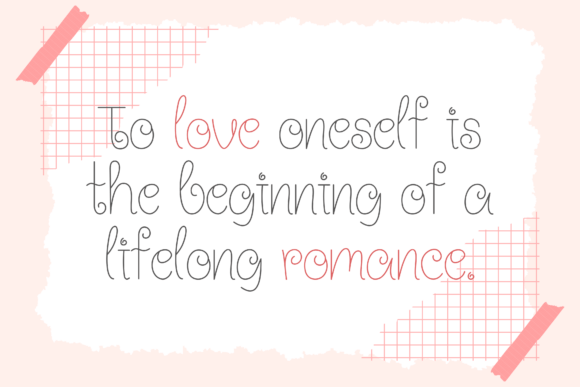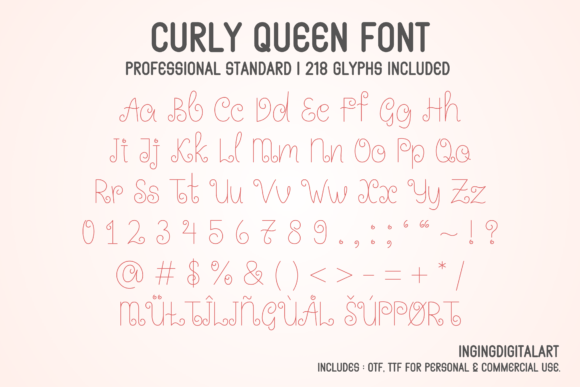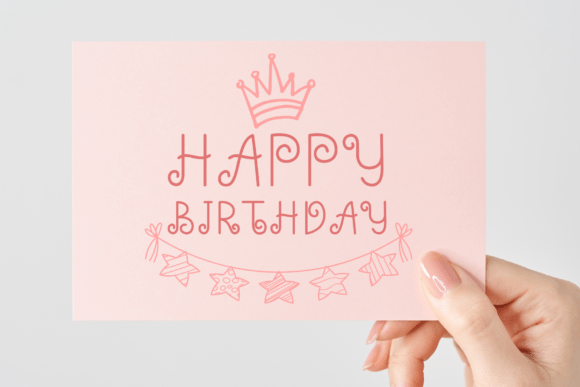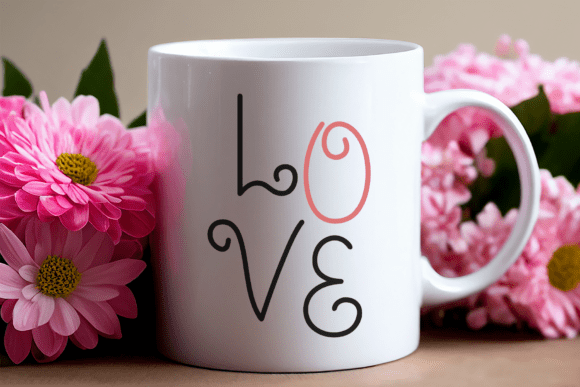
Introduction to Curly Queen Font Font
Fonts play a crucial role in design, and the Curly Queen Font font is a typeface that brings both character and versatility to any project. Whether you’re working on a branding project, a website, or a print design, the Curly Queen Font font offers a unique style that can elevate your work.
Add a touch of charm and magic to your designs with Curly Queen, the perfect hand-lettered font for all your creative projects.
With its playful curves and delightful style, this font is ideal for adding a fun and friendly feel to your work Whether youβre crafting invitations, designing cute prints, or creating standout social media graphics, Curly Queen brings the personality that will make your projects shine.
Why Choose Curly Queen Font Font?
The Curly Queen Font font is more than just a typeface β it’s a design tool that helps you communicate your message with style and clarity. Its unique character set and versatile design make it suitable for a wide range of applications, from elegant invitations to bold headlines.
With its carefully crafted letterforms and balanced proportions, the Curly Queen Font font ensures readability and visual appeal across all mediums.
What makes Curly Queen Font font special?
The Curly Queen Font font stands out with its unique design, exceptional readability, and versatility across various design applications.